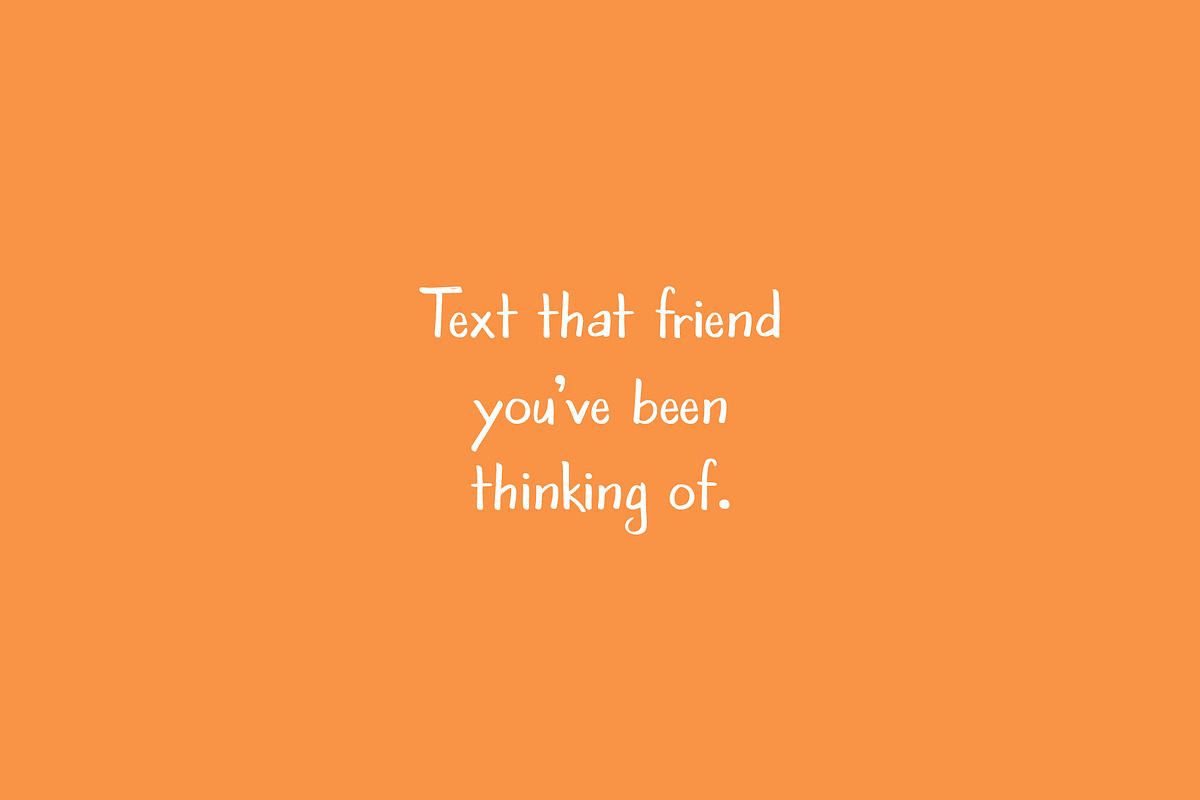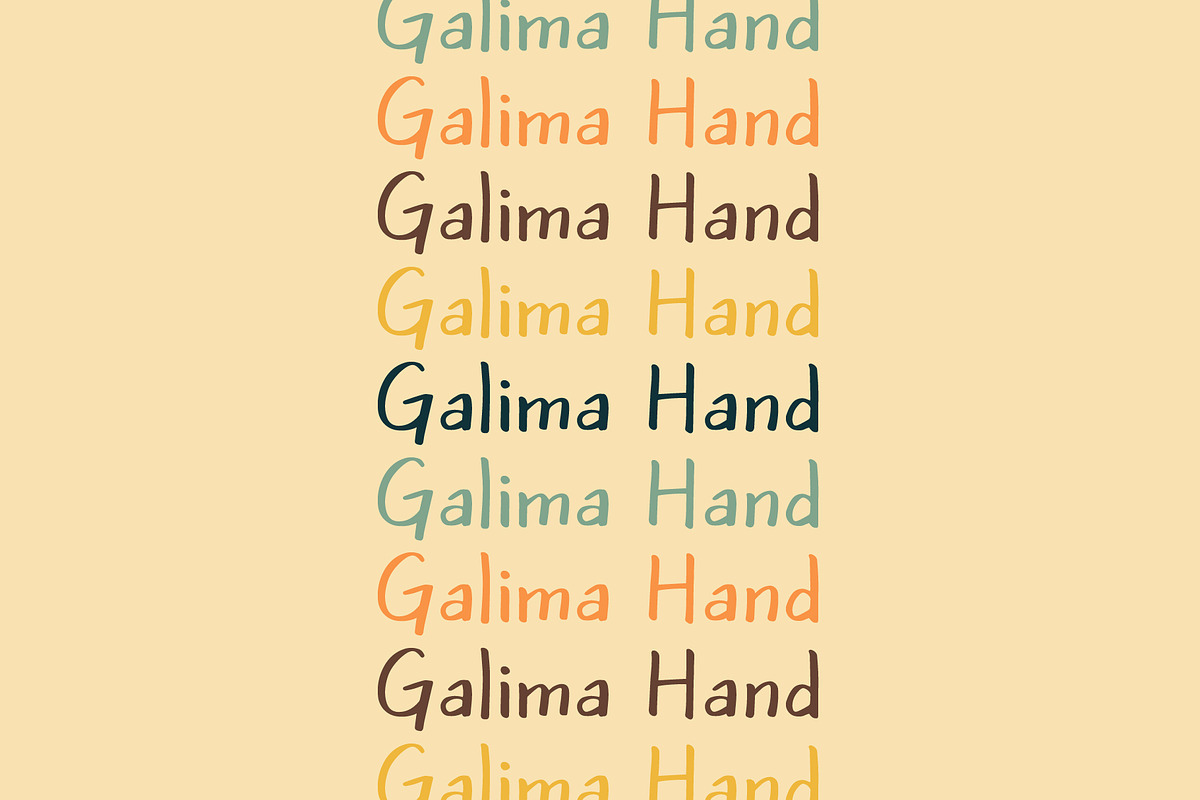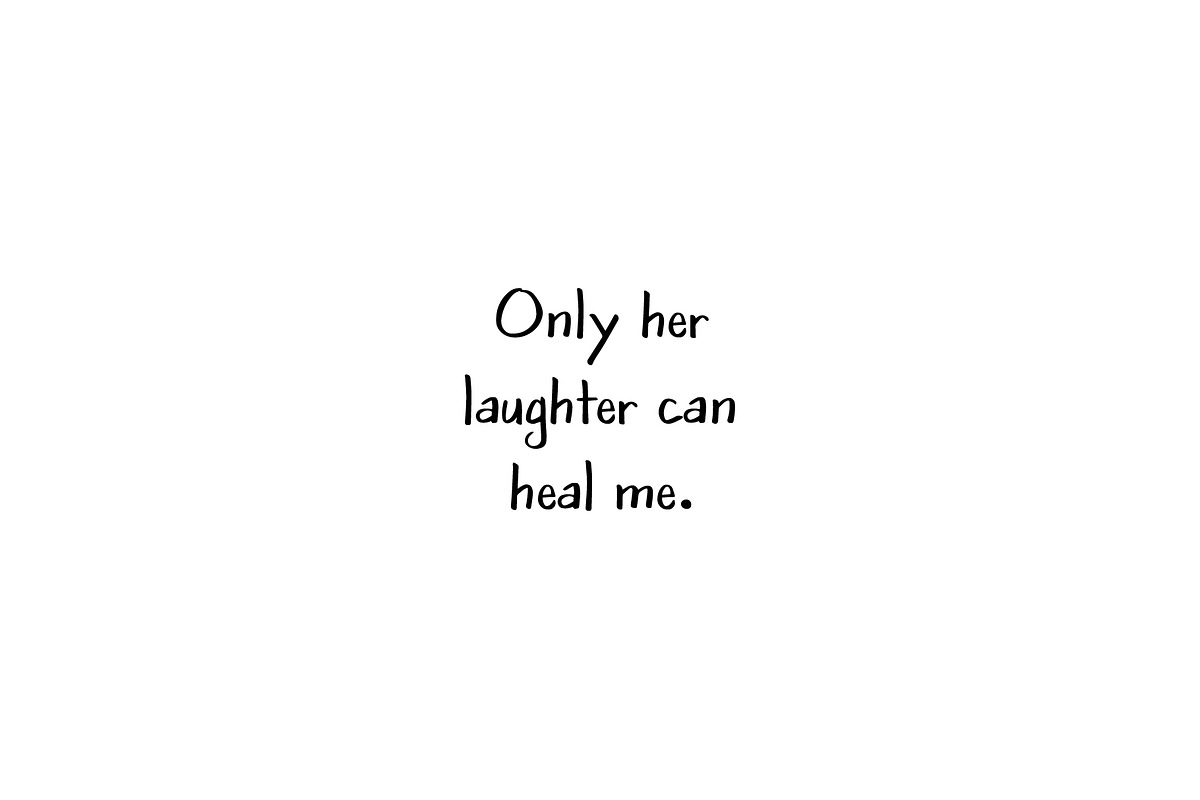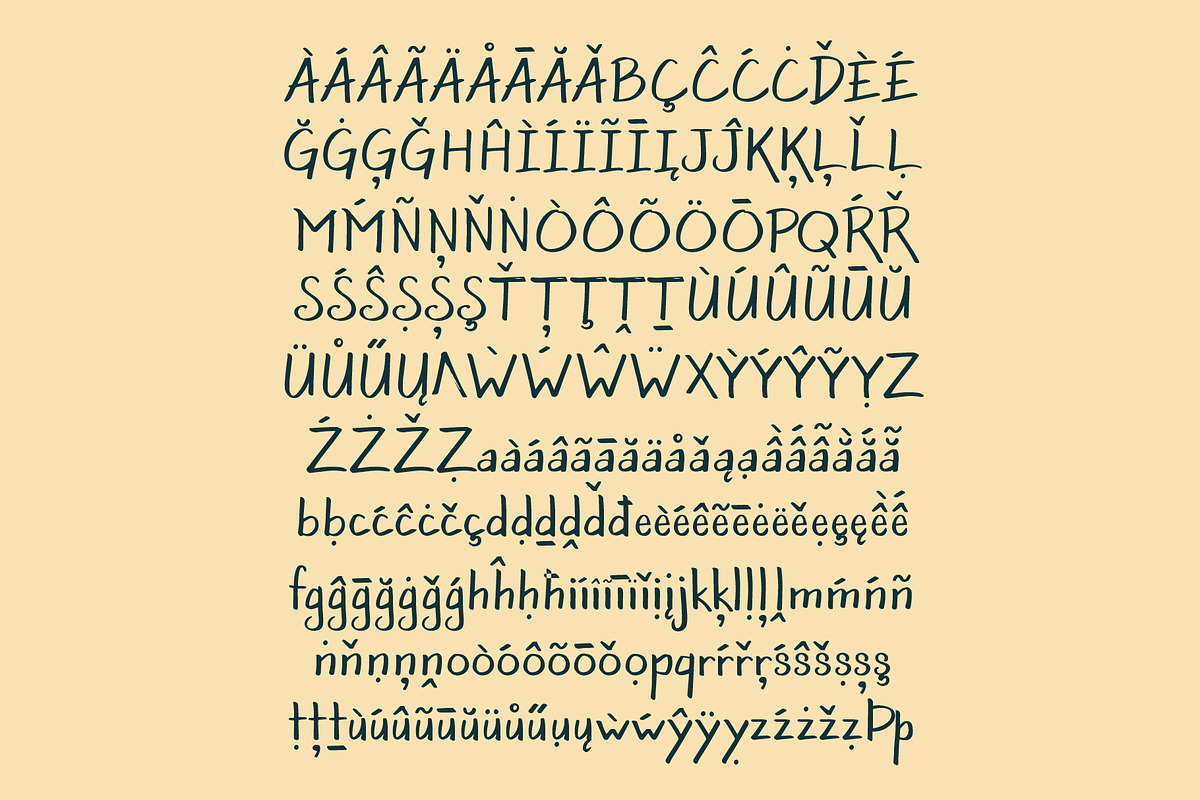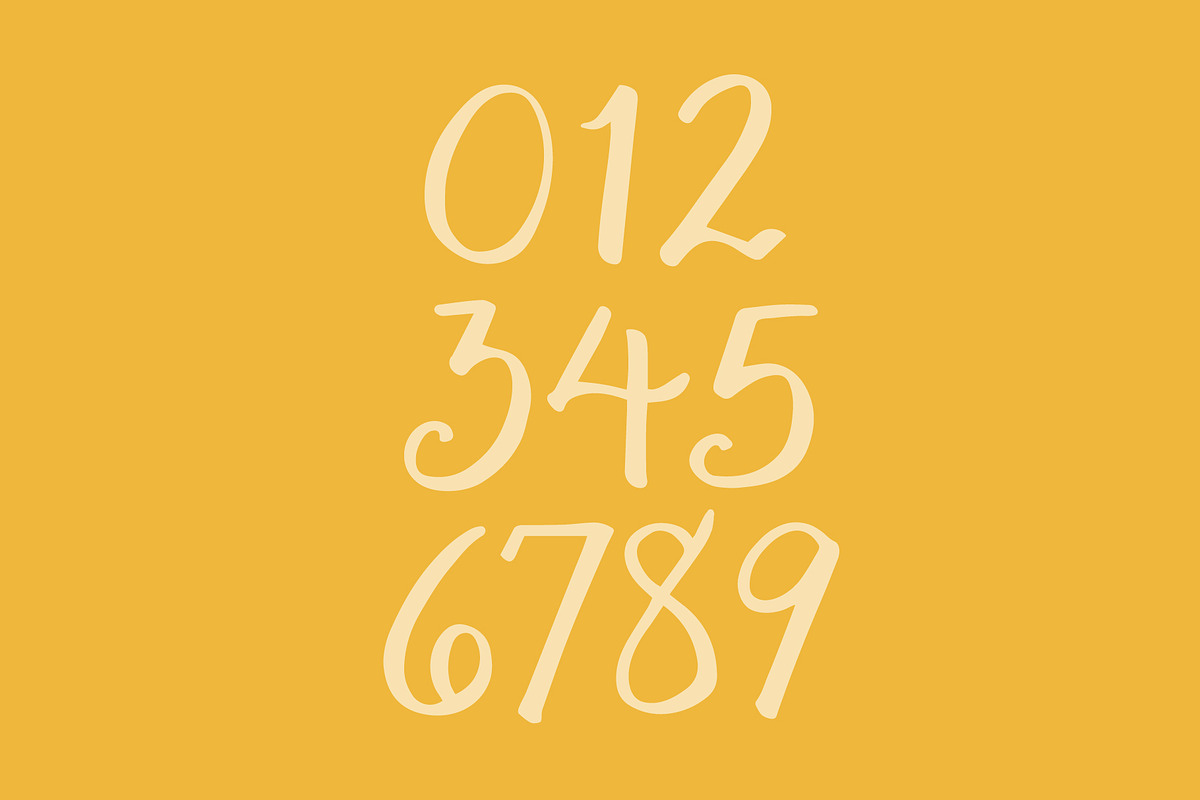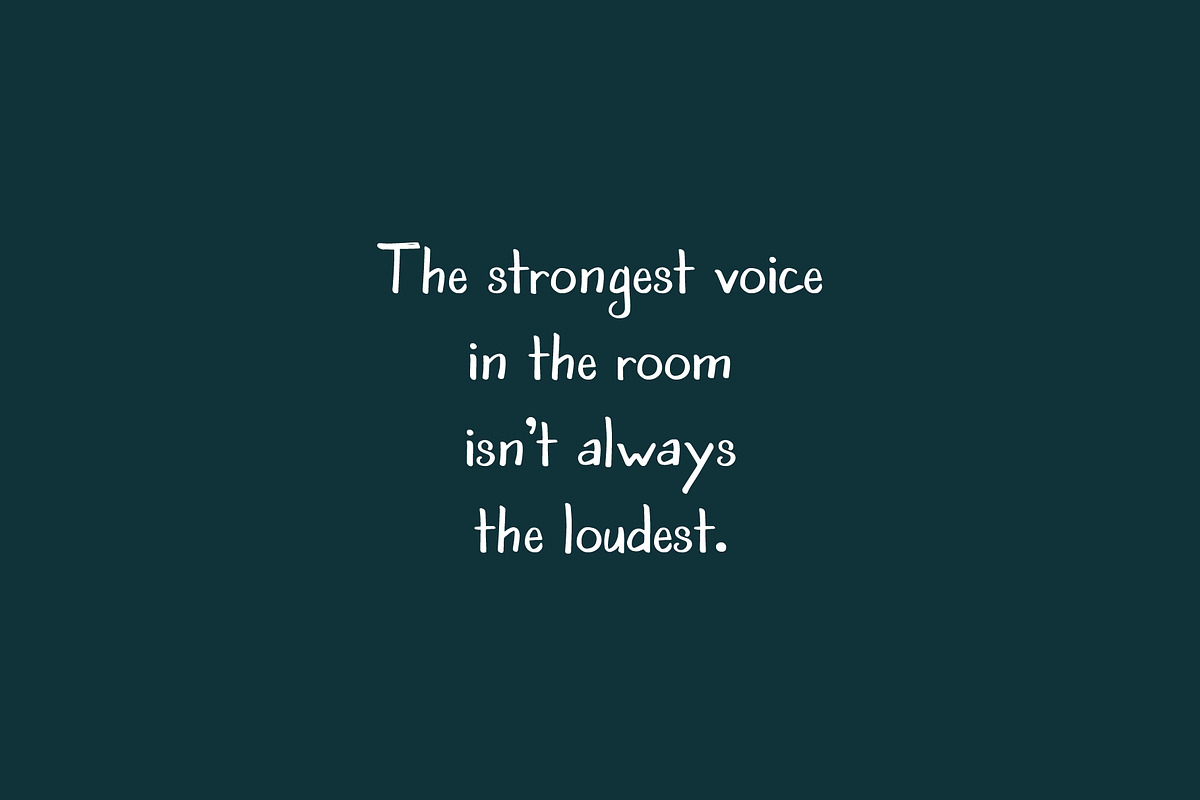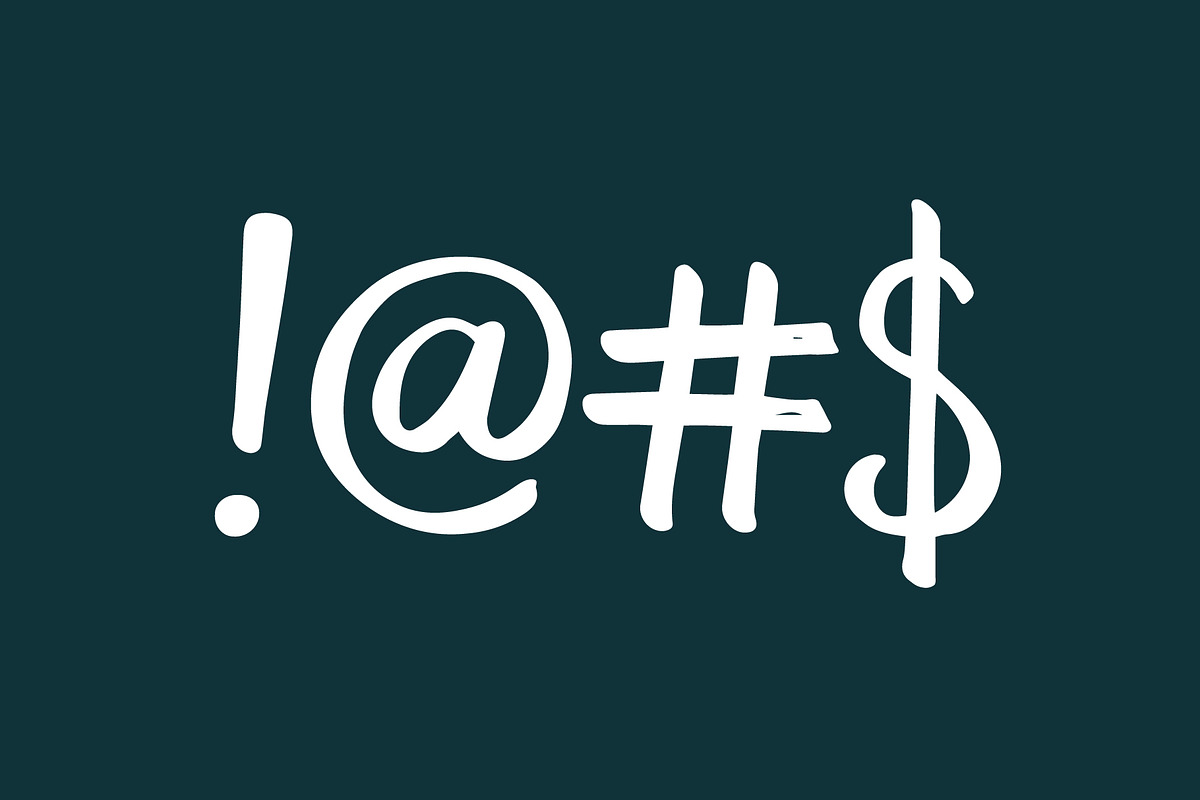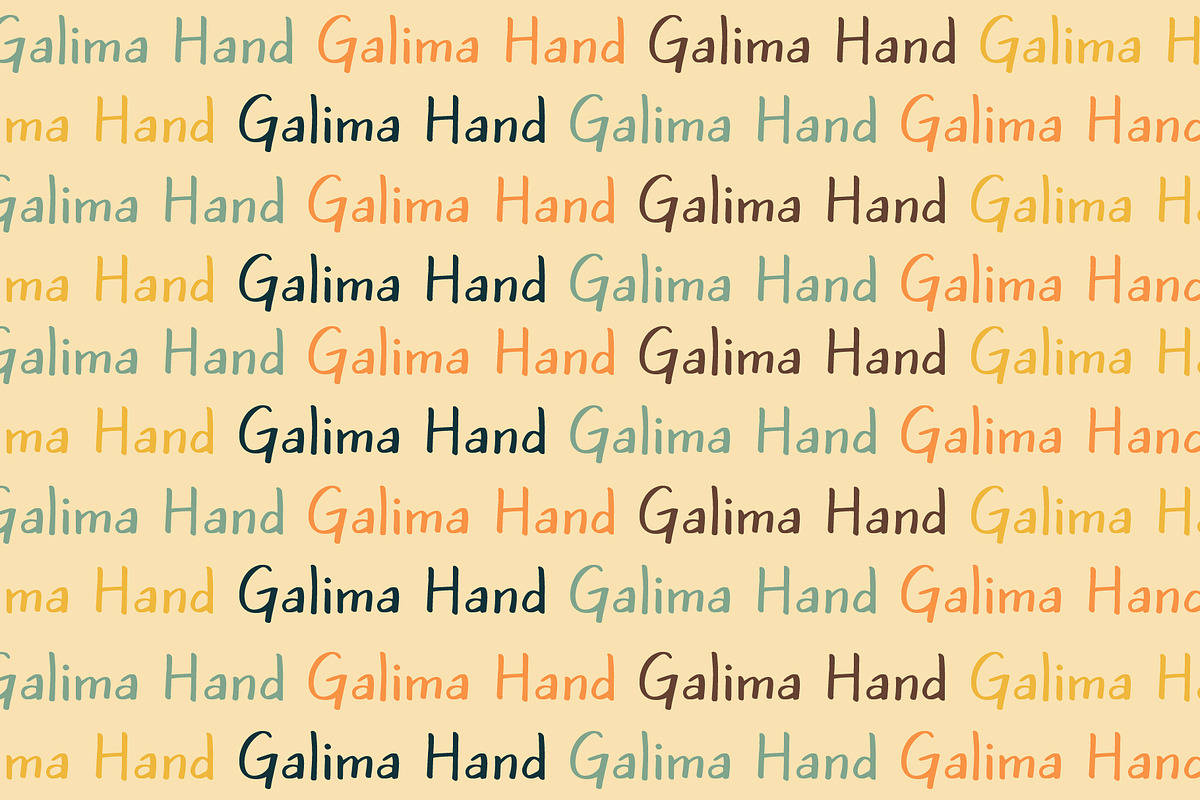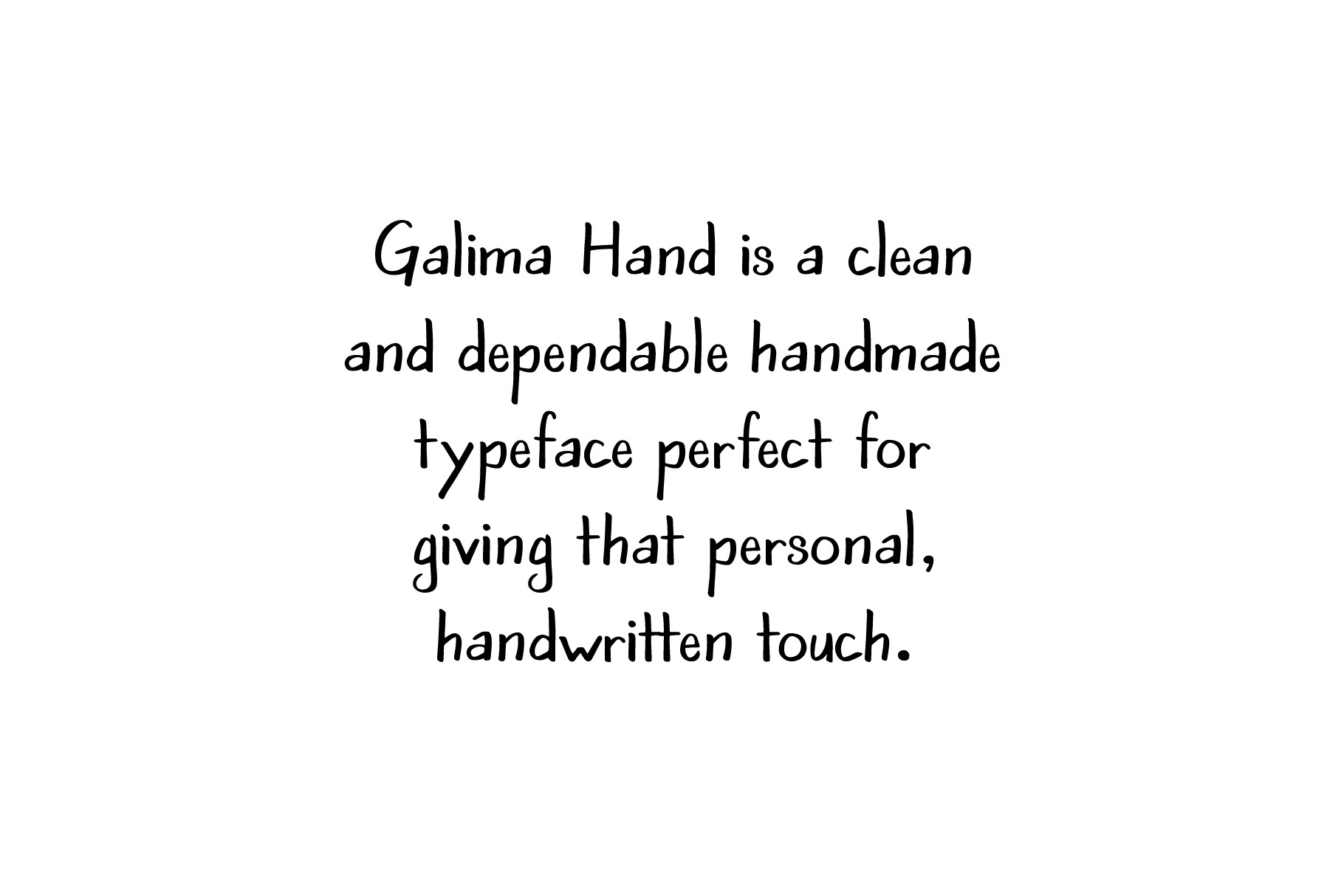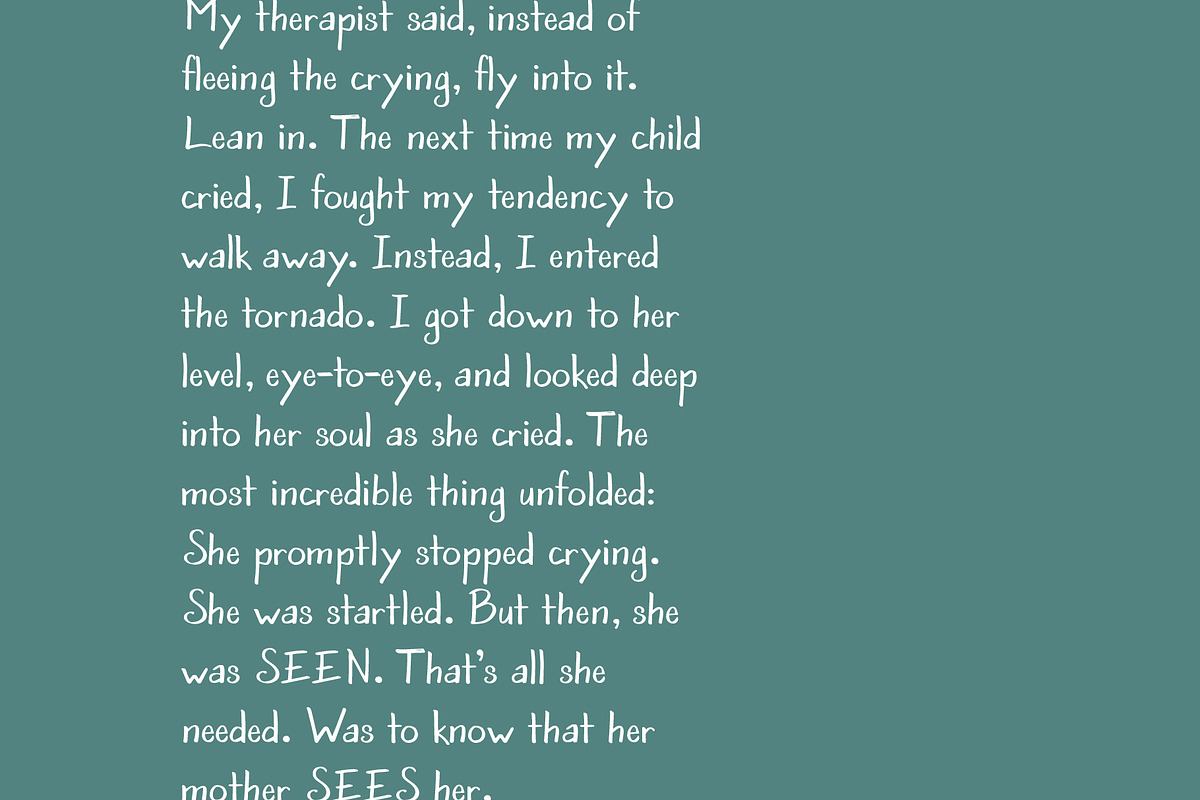
Galima Hand - handwritten font
A neat and sweet handwritten font. This might be a font best used with lots of breathing room and ample white space as the preview images demonstrate. You can also use this in long formats with multiple lines of text. If you need something that looks subtly handwritten while not overly so, this is your ticket.
Typography Talk Using a Fudenosuke Brush Pen, I drew each letter onto paper then scanned each character. As a result, this low-contrast typeface has soft entry and exit strokes for a rounded and approachable feel. Galima Hand rocks tall ascenders (ooh!), a slightly narrow width (bring on those long format projects!), and my favorite kind of lowercase “a”: The double-storey a (YEAH!). The slight angle on the shoulders of the lowercase h, m, and n is all-adult and no-nonsense. No juvenile bubble letters here! (For a typeface literally inspired by babies, please see Thickum Thighs.)
Type Specimens Speaking of legacies, Galima Hand is also a gift I leave to my young daughter. She’ll always have Mommy’s handwriting long after I’m gone. Are you crying? I’m not crying. (Just kidding, I’m totally crying.) WHOO BOY, let’s talk about the typography now, shall we?
Background Galima Hand is my gift to you! It’s my handwriting made into a typeface. “Galima” is my middle name… AND my mom’s maiden name! I see traces of her handwriting in my own, so hence the name, Galima Hand.
As a shy kid, I felt most comfortable expressing myself through art and handwriting. I gained confidence through compliments about my penmanship and rode that wave to become VP of my high school calligraphy club. (As Tig Notaro and Cheryl Hines would say in their ‘Tig and Cheryl: True Story’ podcast, “BRAGGADOCIOUS ALERT!”)
This font is also me reckoning with my own internalized racism. When I got sucked into “What’s YOUR middle name?” conversations as a kid, I felt shame about mine not being something traditionally “American.” I dreaded having to say, “Galima,” and wait for the confused looks on other kids’ faces. Most everyone was nice about it, but the fact there was a conversation about my middle name at all was just another way of feeling othered. But now, I’m here, proud of my middle name that was given to me with love by my mom and the legacy that is her family.
Awards No big deal/whatevskies, but this font won an American Graphic Design Award by GDUSA and an Honorable Mention in the 2023 Creative Communication Award by C2A.